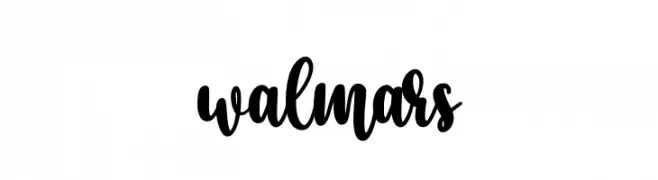
An elegant and sophisticated cursive script font with fluid, connected strokes.
A dynamic, elegant script font with flowing, cursive elements.
A lively and expressive script font with flowing, cursive letterforms.
A bold, expressive script font with flowing, cursive letterforms.